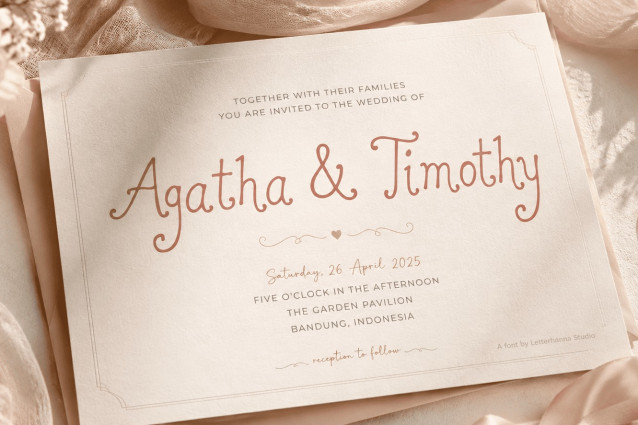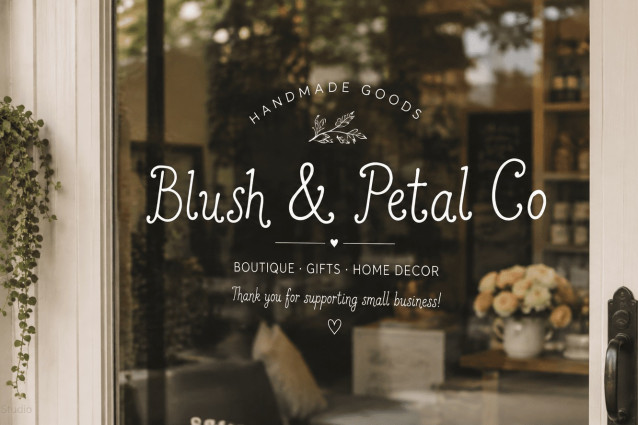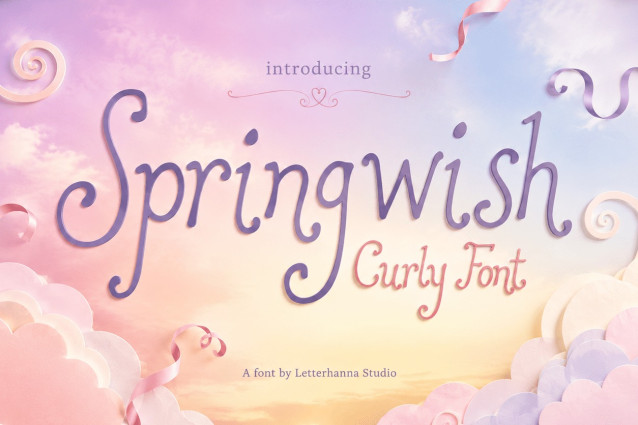
Springwish Font: A Whimsical Curly Font for Wedding Invites
There is a particular kind of magic in a handwritten note — the way a loop swings a little too far, the way a letter dances instead of standing still. That magic is exactly what inspired Springwish, a curly font built for people who want their words to feel like they were written by hand, in a quiet room, with someone they love in mind.
Springwish began the way most good design stories begin: with a small, specific need. A friend was planning her wedding and couldn’t find a font that felt like her — soft but not fragile, romantic but not overdone, playful without losing elegance. Every handwritten font she tried felt either too stiff or too chaotic. So the search turned into a sketch, and the sketch turned into Springwish: a curly font that captures the warmth of ink on paper, with just enough whimsy to feel alive.
The Shape and Style of Springwish
Look closely at Springwish and you’ll notice the capitals lead the story. Each uppercase letter opens with a generous, sweeping curl — the kind of flourish you’d expect from an old love letter or a monogram stitched into a linen napkin. These loops aren’t decoration for decoration’s sake; they set the tone for everything that follows, giving every headline a sense of occasion.